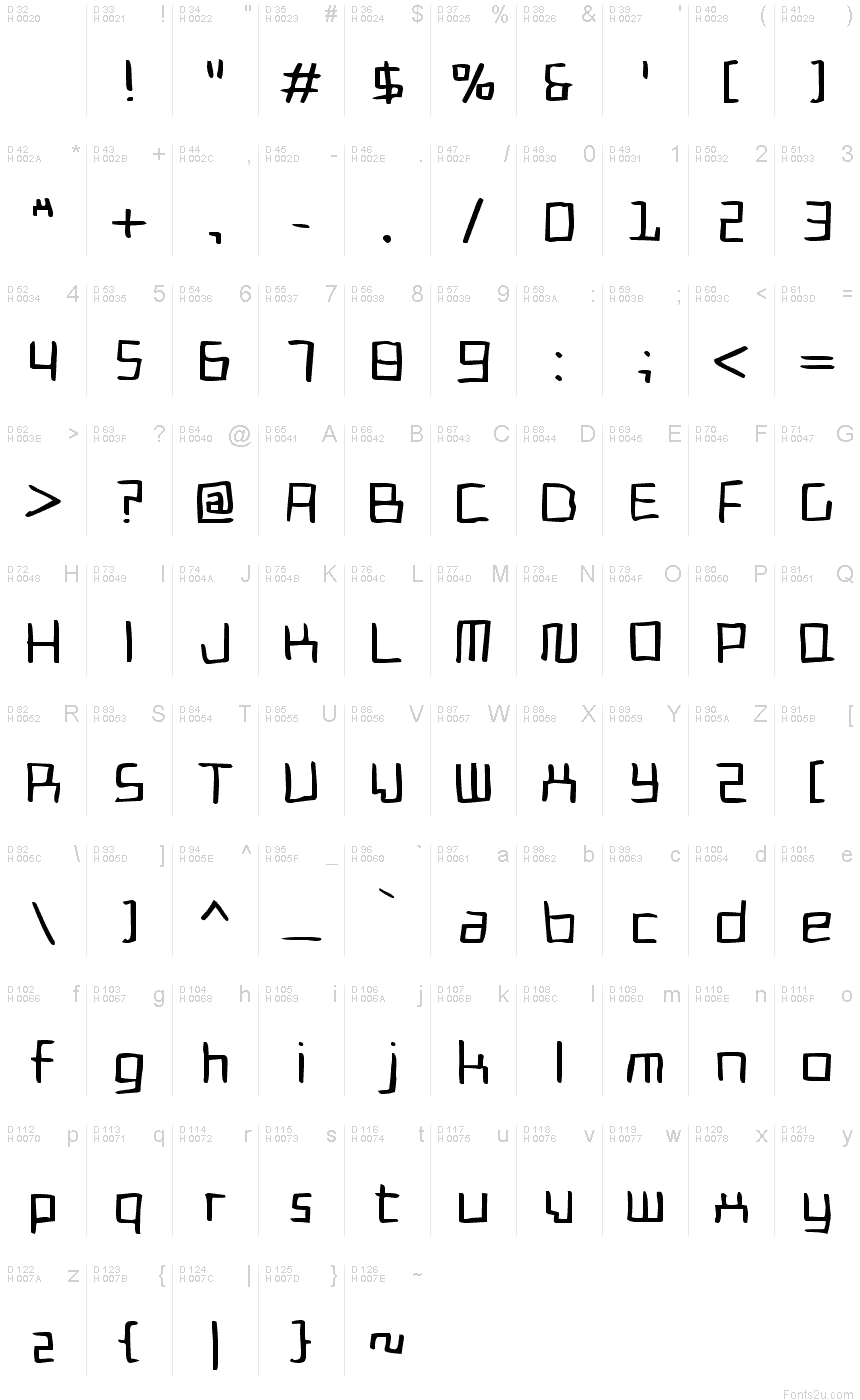
Cadmium Egg
Cadmium Egg font by Tepid Monkey Fonts is a free comic display font with a wiry, hand-inked feel. Its tall, slightly crooked letters look like they’ve been drawn with a stubborn marker—edges are a bit squared, curves wobble just enough to feel human, not messy. The rhythm is tight and bouncy, so words stack up with a casual, scribbled energy that still reads cleanly at a glance.
Using Cadmium Egg, this free font shines on indie comics, zines, gig posters, kids’ book titles, YouTube thumbnails, and sticker or T‑shirt graphics. The narrow shapes help squeeze punchy headlines into tight spaces without losing that sketchbook charm. Pair this typeface with a plain sans serif for body text and let Cadmium Egg handle titles and captions at larger sizes to keep the handmade character crisp and lively.